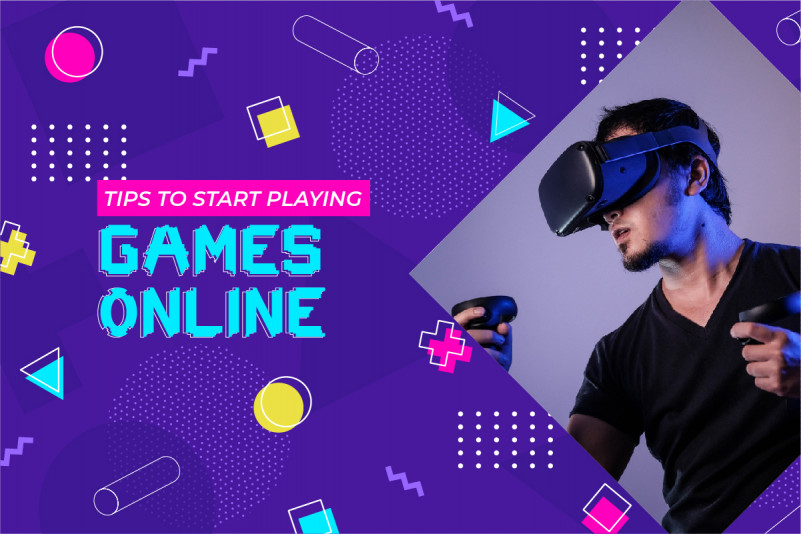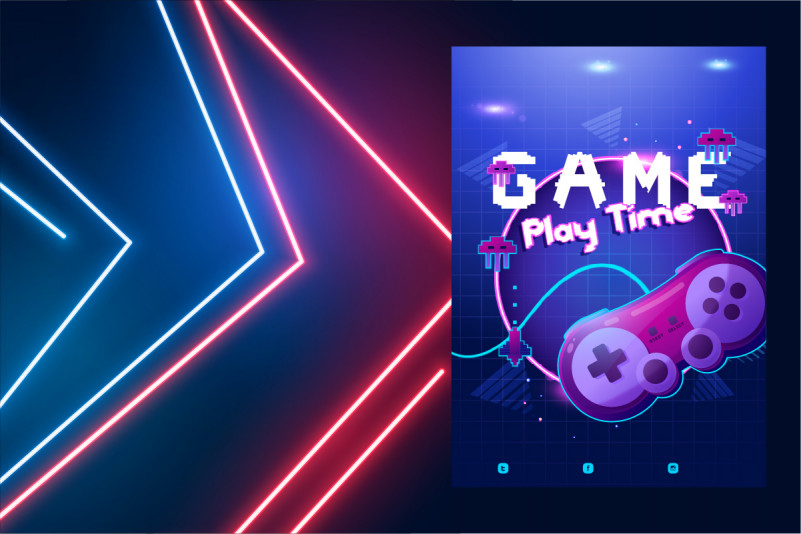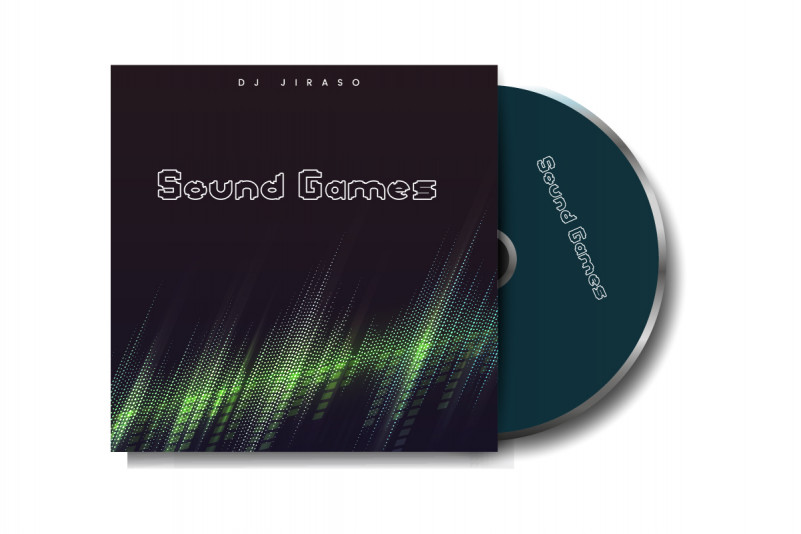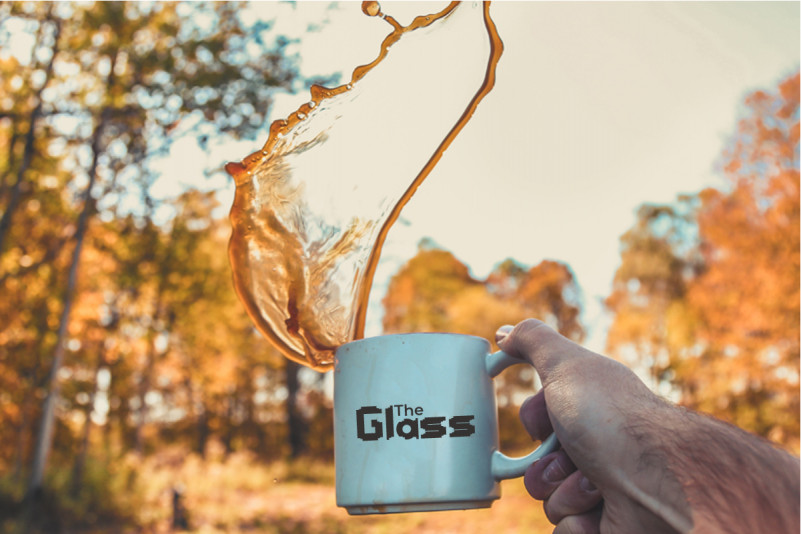
Head Kick Display Font
Head Kick Font is a display font with unique futuristic style. The font was inspired by many street arts ,techno and hip poster. It has a unique style that will bring the special effect to the design. It will works for games, technology, events, spaceship and any other things. Head Kick Font includes full set of Uppercase and Lowercase Basic Characters, Numerals and Punctuation. You can also combine two or more styles on the text like we did on the cover, so you will great even more unique and special font. The font is perfect for many projects, headlines, logos, poster, tittle, products, etc